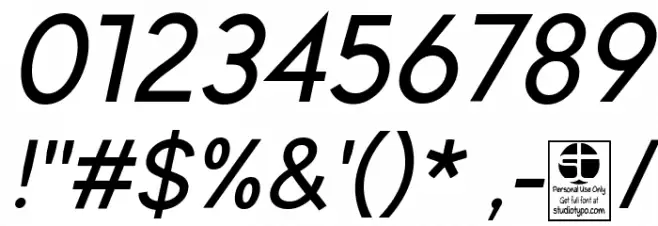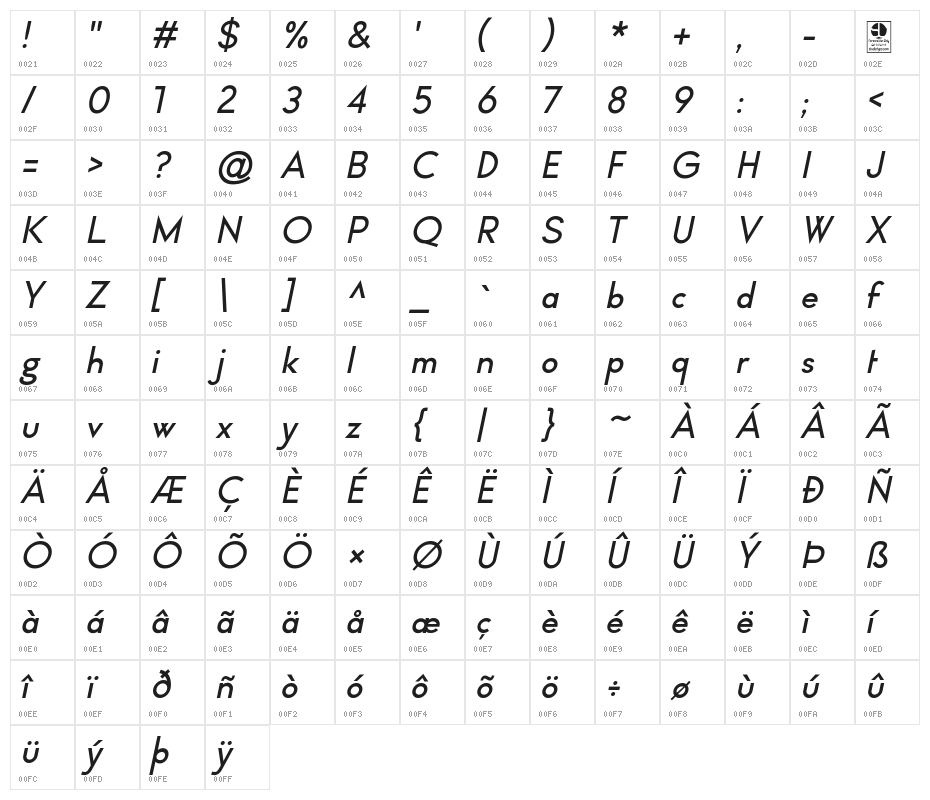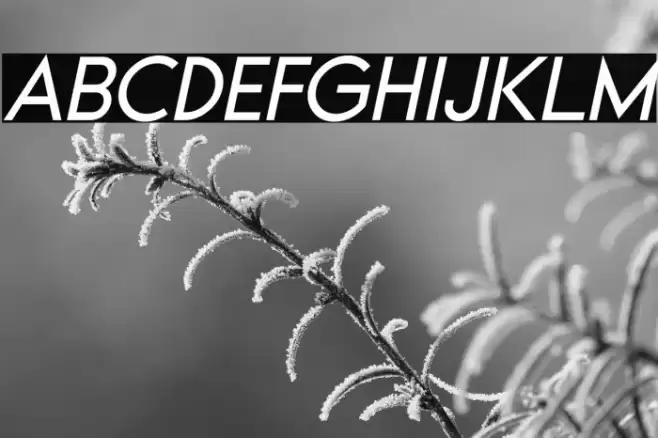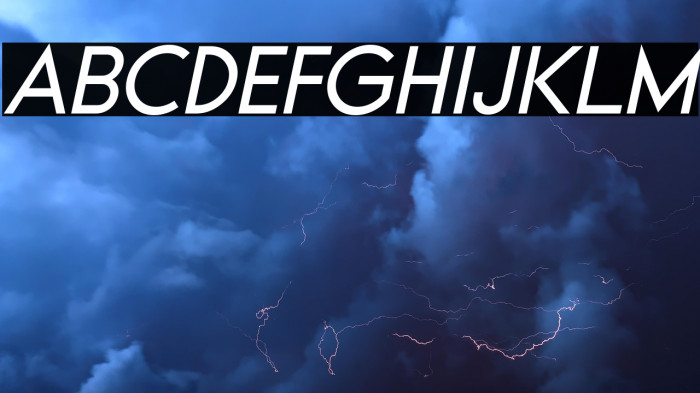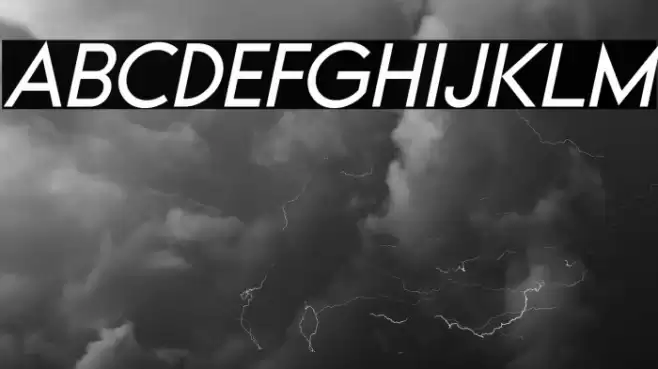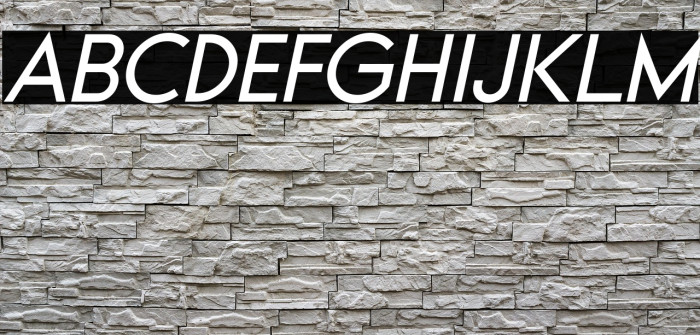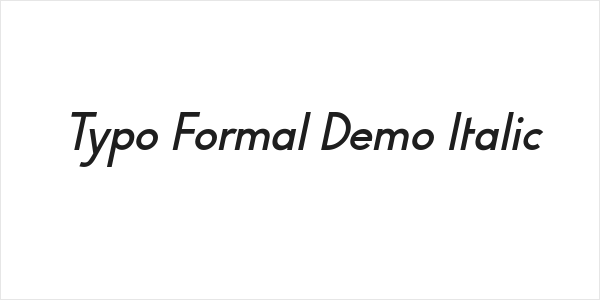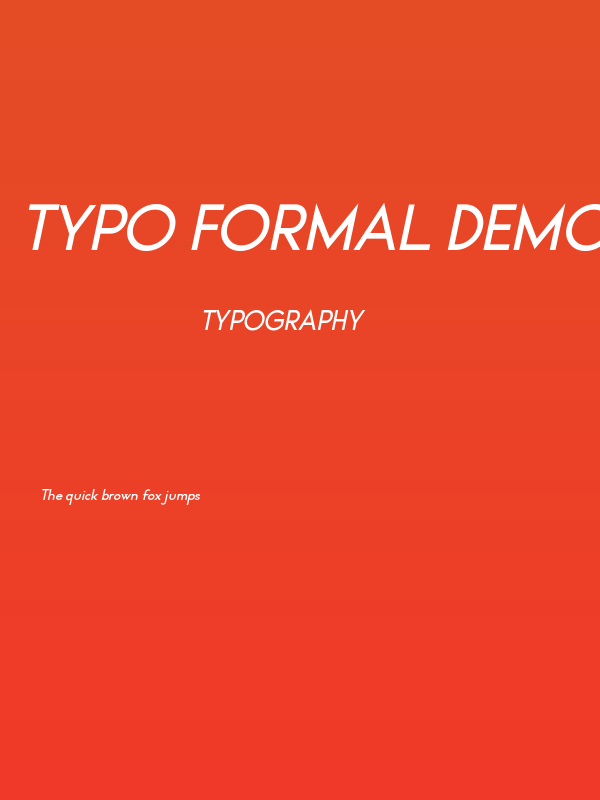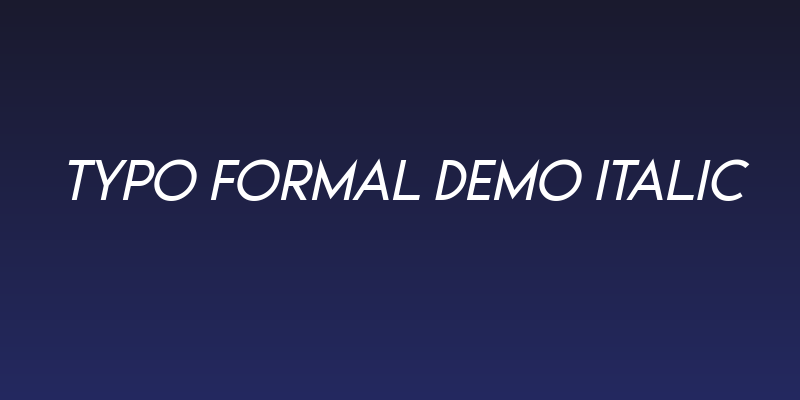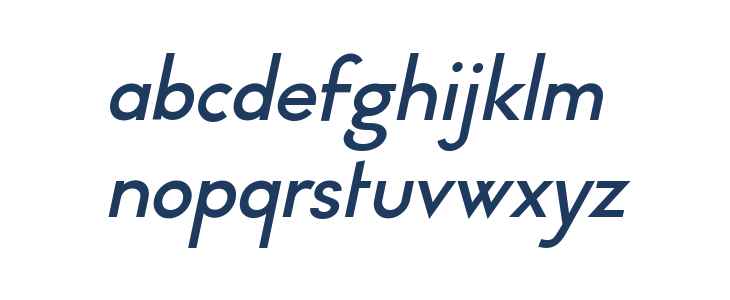
Typo Formal Demo Italic Font
Typo Formal Demo Italic Description
This font features a sleek and modern italic style, characterized by its clean lines and smooth curves. The uppercase letters are slightly elongated, giving them a sophisticated appearance, while the lowercase letters maintain a consistent flow with a slight slant. The numerals are clear and easy to read, matching the overall aesthetic of the alphabet. Special characters are well-defined, adding versatility to the font. The design is both elegant and functional, making it suitable for a variety of applications.